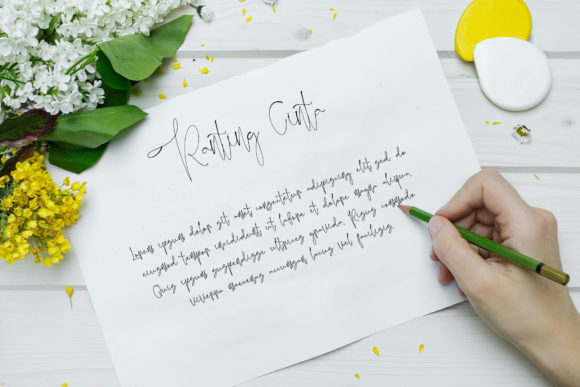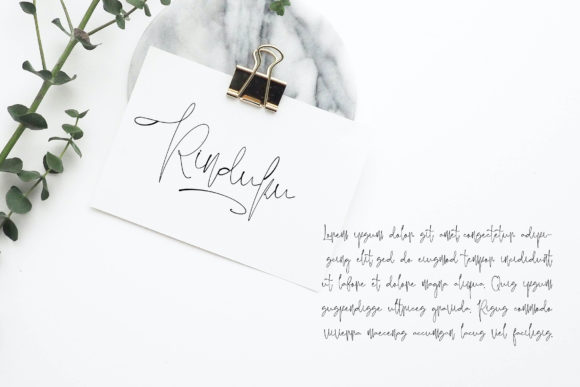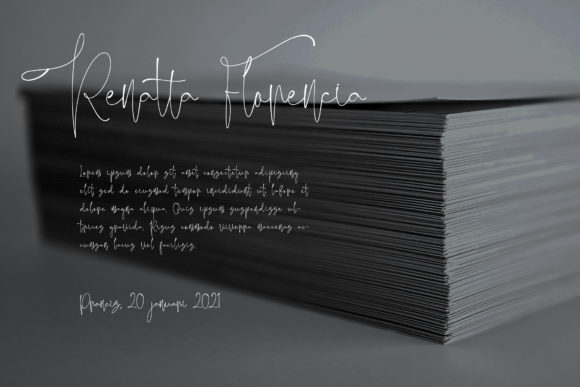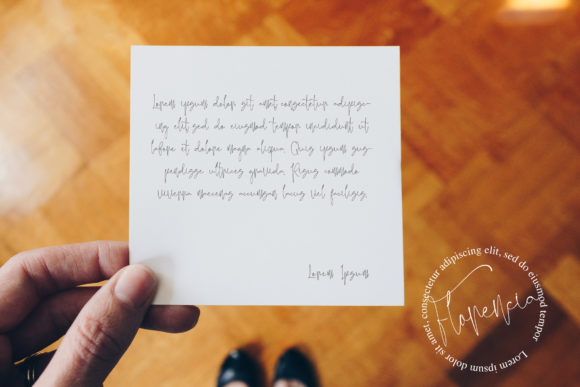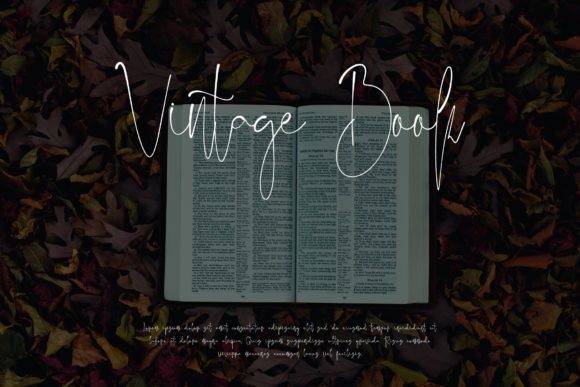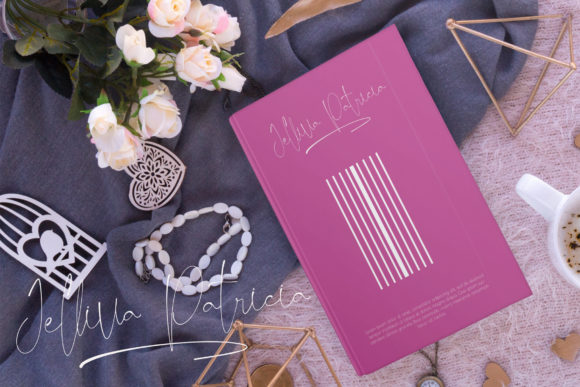
Introduction to Jelliva Patricia Font
Jelliva Patricia is a thin lettered and delicate script font, with a unique feel and a stunning impact.
It will add a luxury spark to any design project that you wish to create .
Key Features of Jelliva Patricia Font